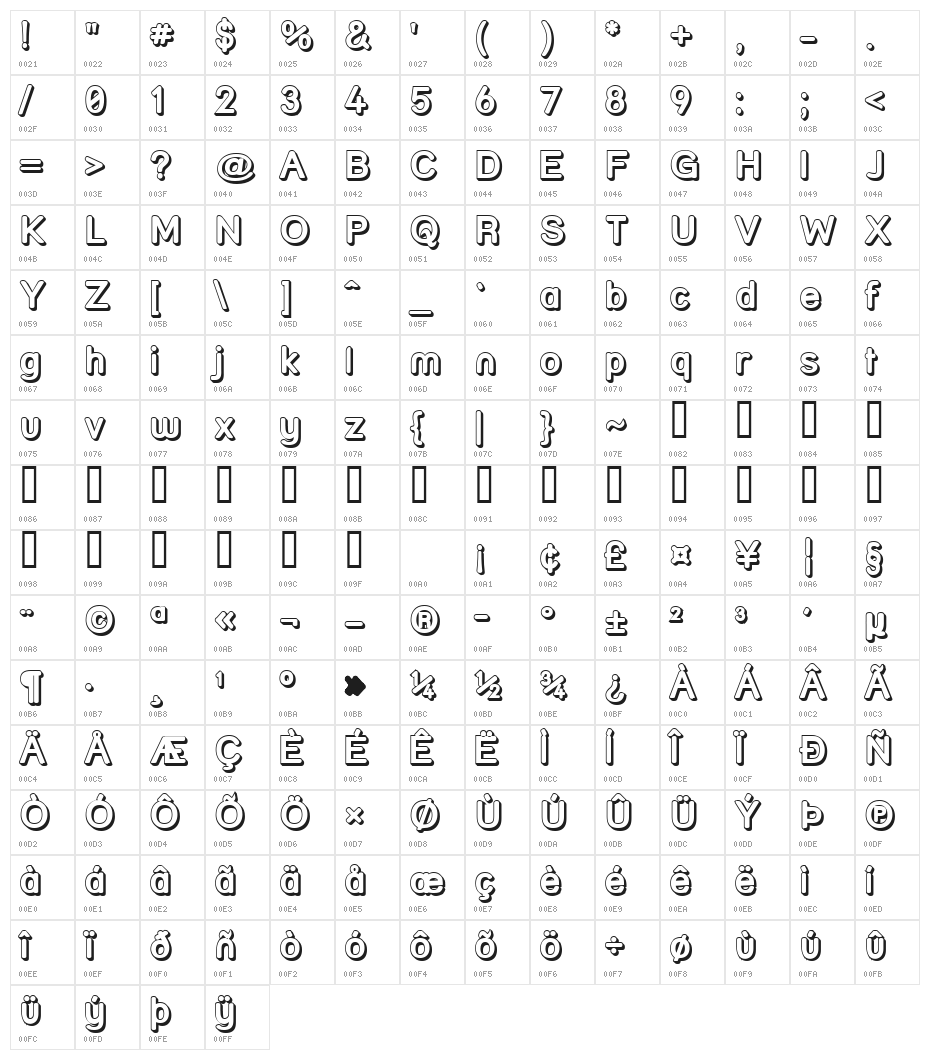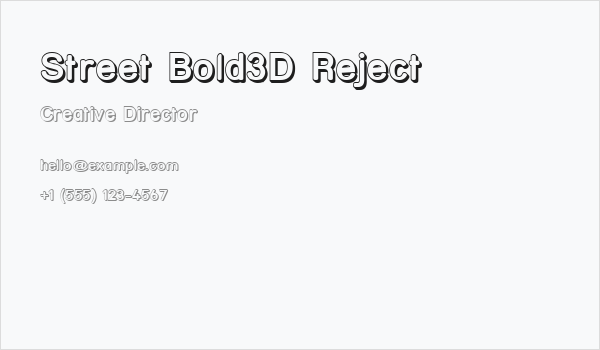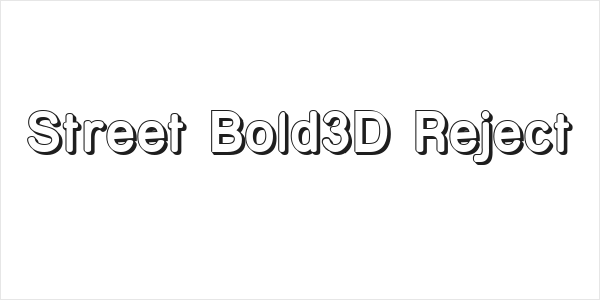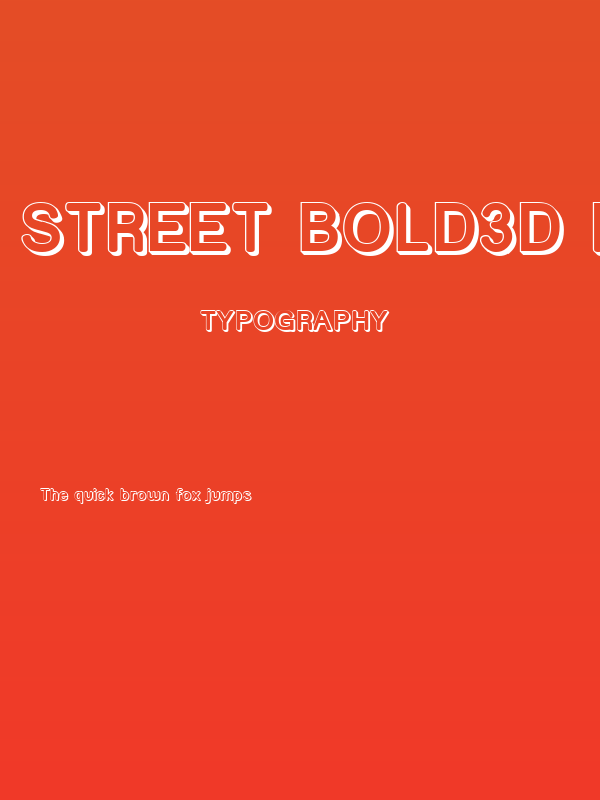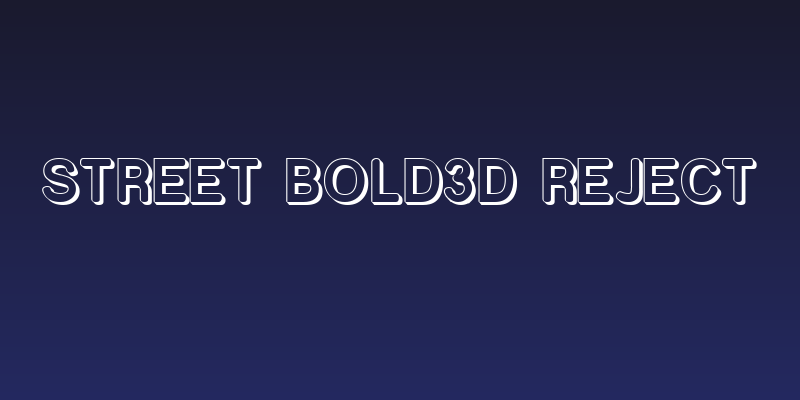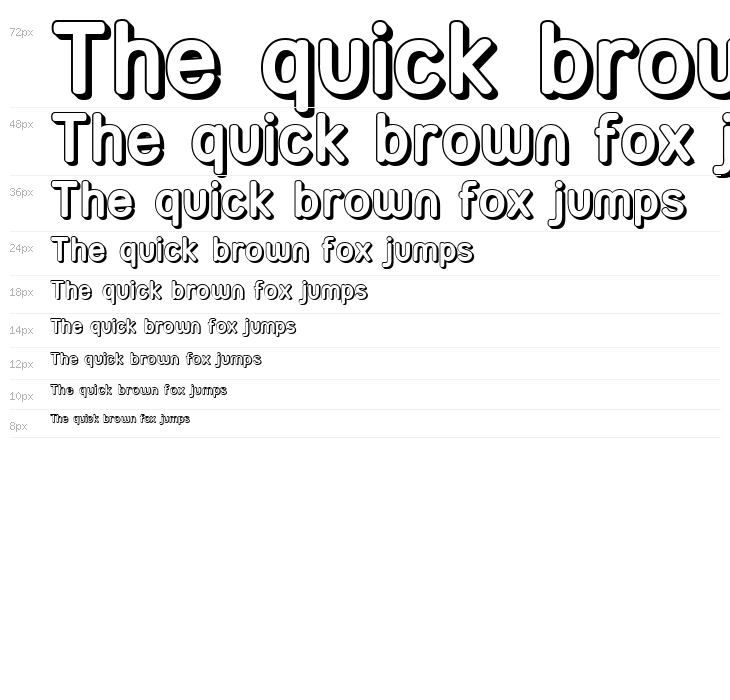
Street Bold3D Reject Font
Street Bold3D Reject Description
This font features a bold, three-dimensional style with a strong outline that gives each character a distinct, impactful appearance. The uppercase and lowercase letters maintain a consistent thickness, enhancing readability while adding a playful, dynamic feel. The numbers and special characters follow the same design principles, ensuring uniformity across all elements. The font's 3D effect is achieved through a clever use of shadowing, which adds depth and a sense of movement. This makes it particularly suitable for eye-catching designs where a modern and energetic vibe is desired.
| Proposed Projects | Ideal for posters, headlines, branding materials, and any project requiring a bold, modern touch. |